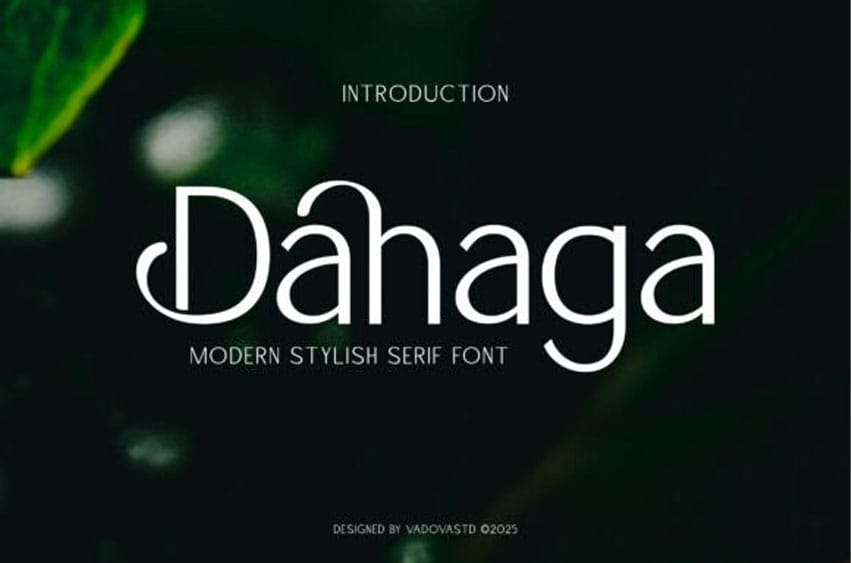
Dahaga Font Elevate your visual storytelling with Dahaga, a sophisticated display typeface that captures a “minimalist-and-high-fashion” soul. This font features sleek, modern serif letterforms characterized by exceptionally clean lines and rhythmic, sweeping ligatures that add a custom, high-end feel.
With its balanced geometric structure and airy, elegant personality, Dahaga is the premier choice for independent luxury perfume branding, editorial fashion magazine spreads, upscale interior design portfolios, and high-impact “modern-chic” social media headers.